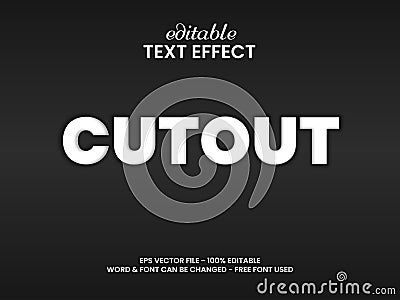
Cutout Text Effect. Paper Cut Text Editable Font. Clean Easy To Use And Edit Vector Illustration
Paper cut editable text effect style. Cutout paper theme. Flat and minimalistic.